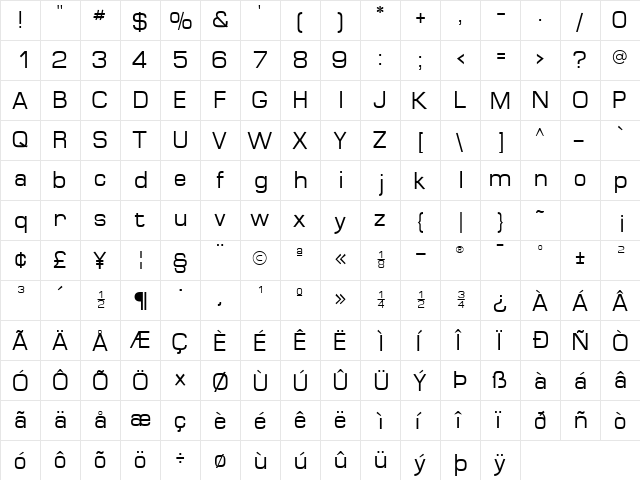
MinimaSSK Regular
Design Context for MinimaSSK Typeface
MinimaSSK is a composed and adaptable typeface that performs quietly and consistently across a wide range of design contexts.